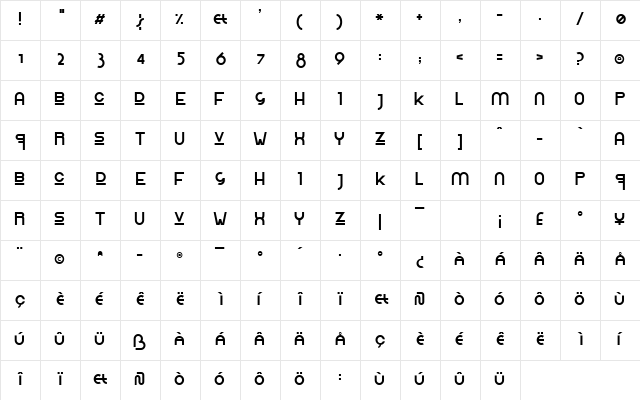
Rolinga Renner Extravaganza Font Preview
Rolinga Renner Extravaganza
Rolinga Renner Extravaganza Font Details
| Style | Extravaganza |
Design Context for Rolinga Renner Typeface
Rolinga Renner takes a measured approach to typography — its balanced proportions and neutral character make it a reliable workhorse for both digital and print work.